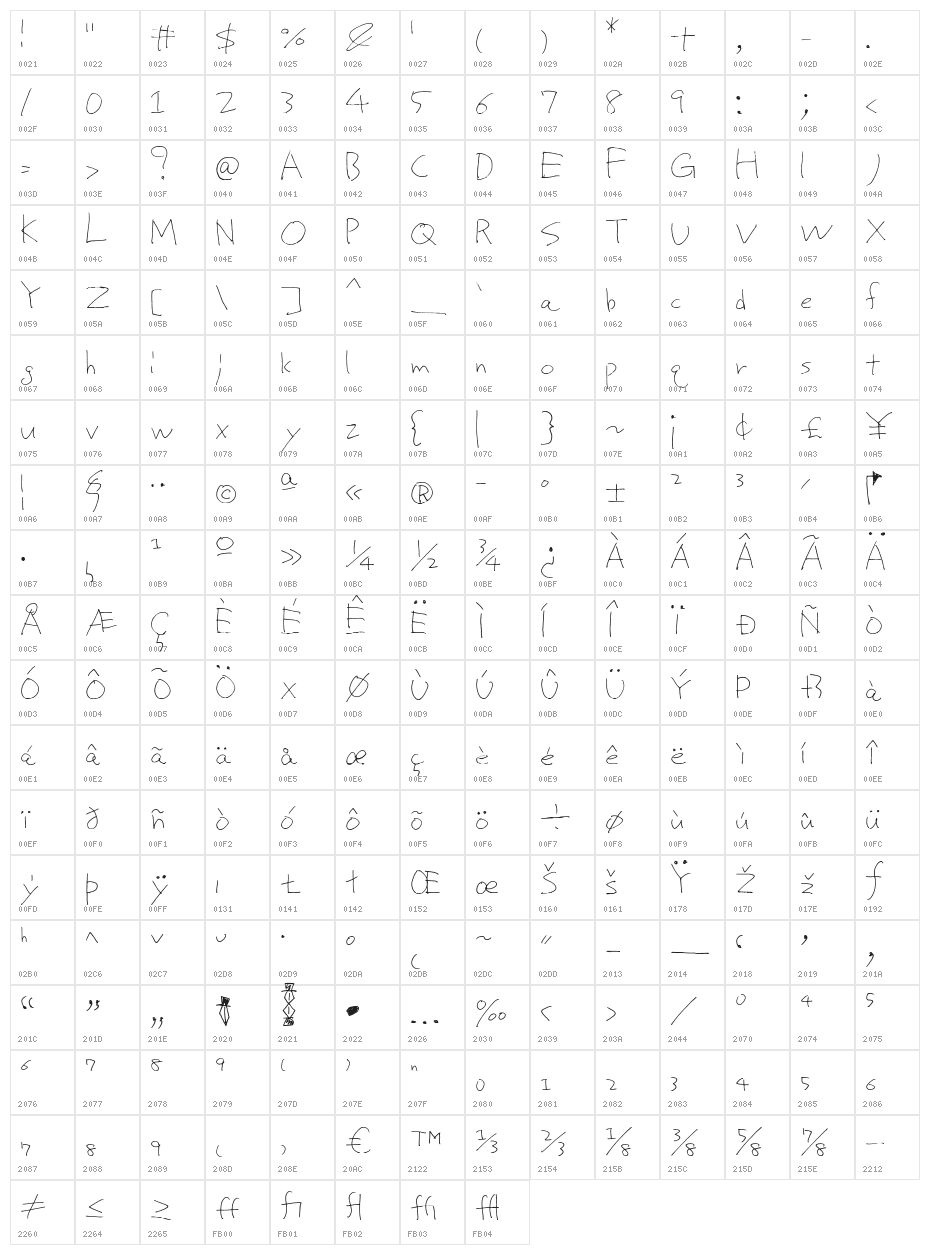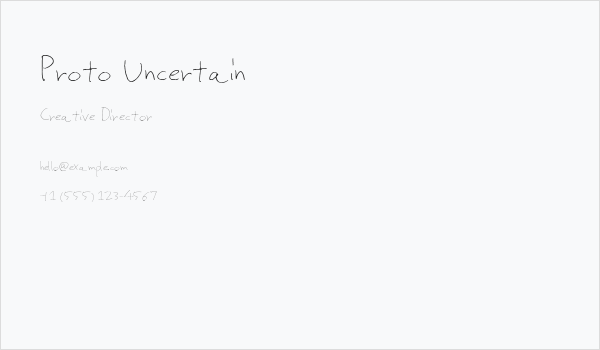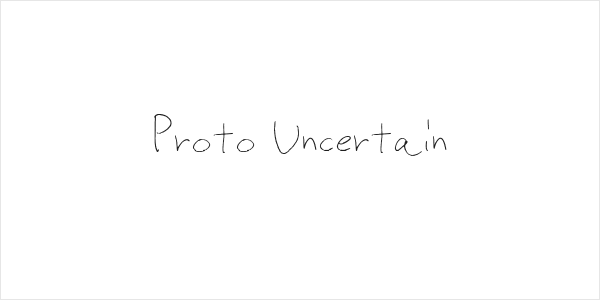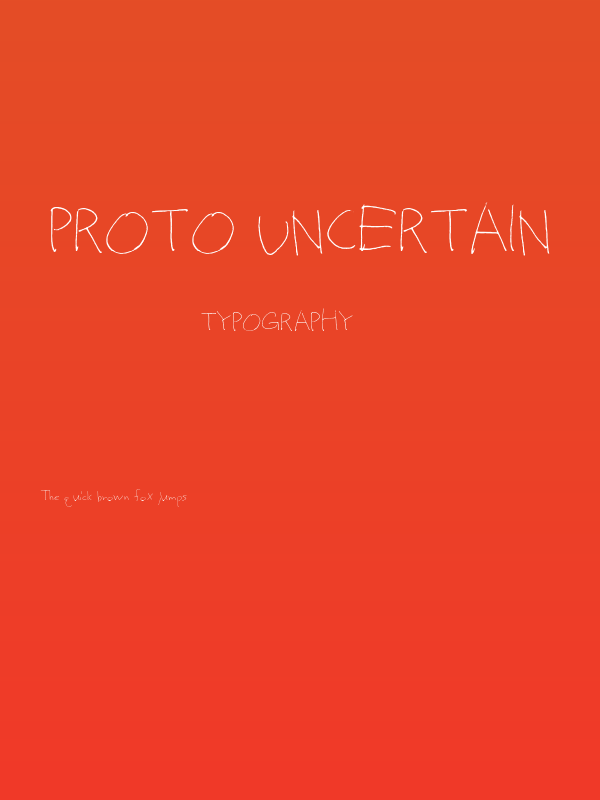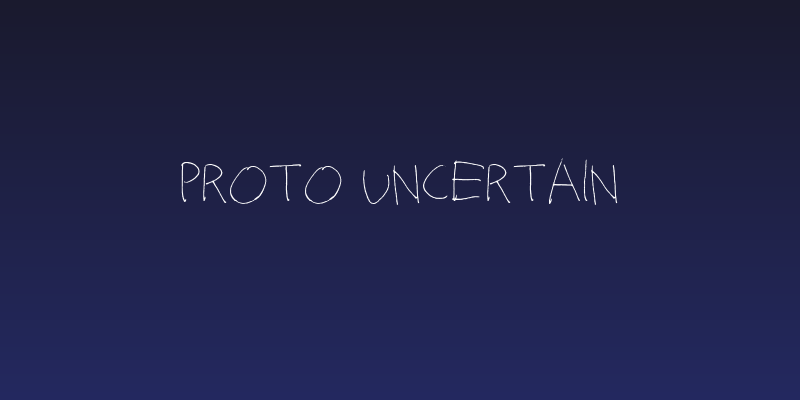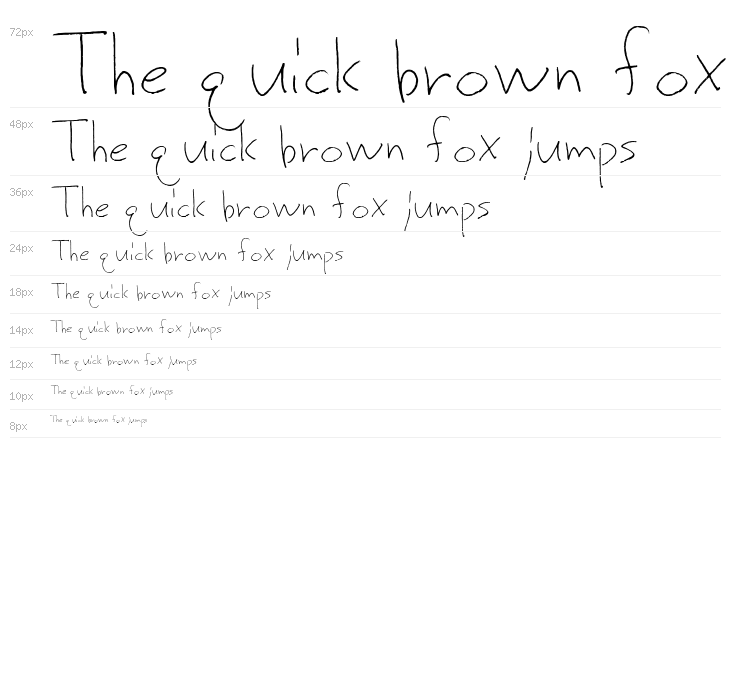
Proto Uncertain Font
Proto Uncertain Description
This font exhibits a casual, handwritten style with a playful and informal appearance. The characters are slightly irregular, mimicking the natural flow of handwriting. The strokes are thin and consistent, giving it a light and airy feel. The uppercase letters are tall and narrow, while the lowercase letters have a more rounded and open form. The numbers and special characters maintain the same whimsical style, making the font suitable for creative and informal applications. The overall look is approachable and friendly, ideal for projects that require a personal touch.
| Proposed Projects | Greeting cards, personal notes, children's books, casual invitations, and creative projects. |